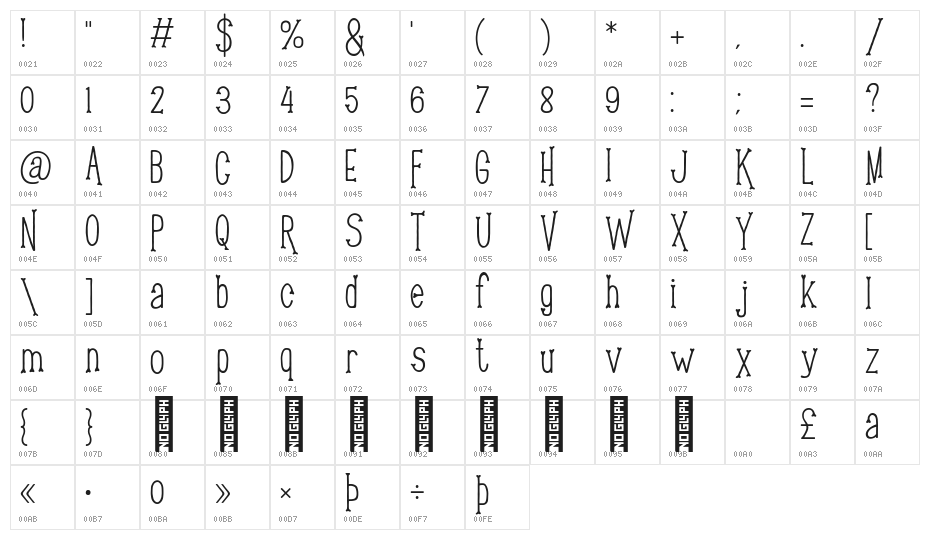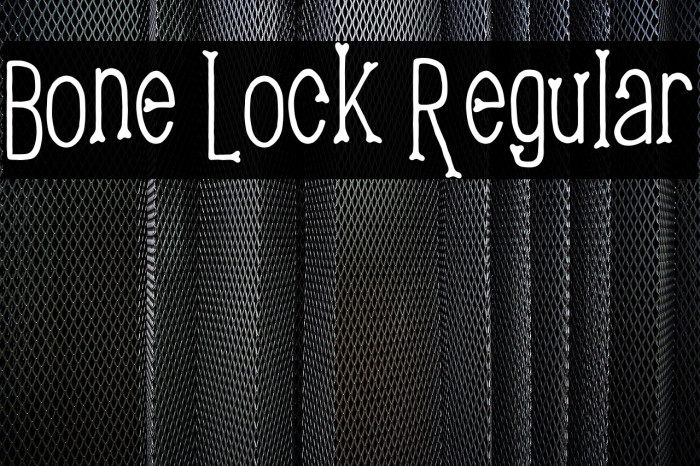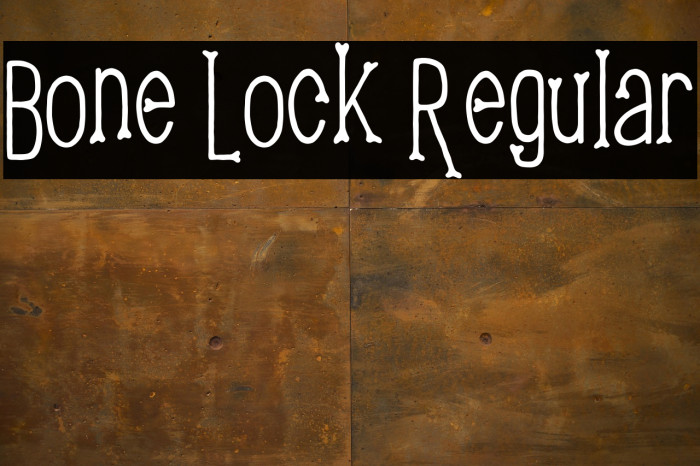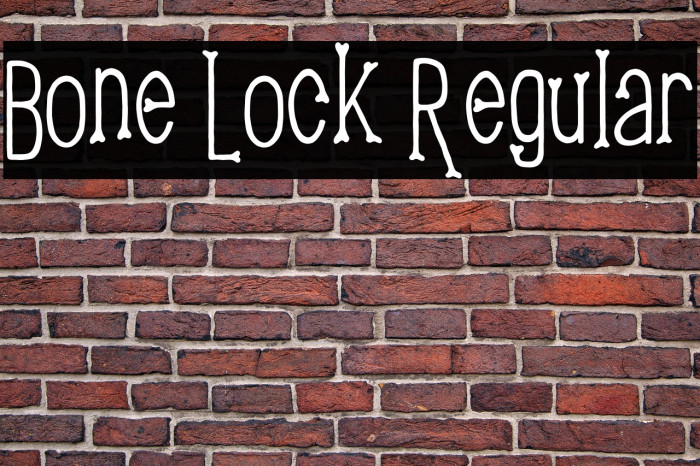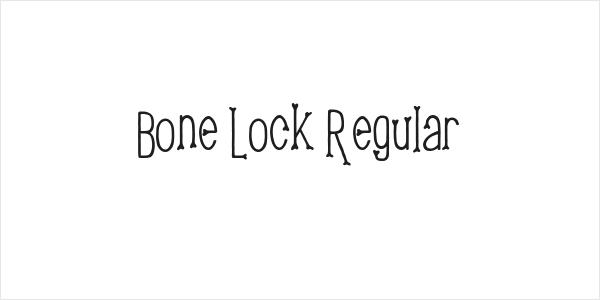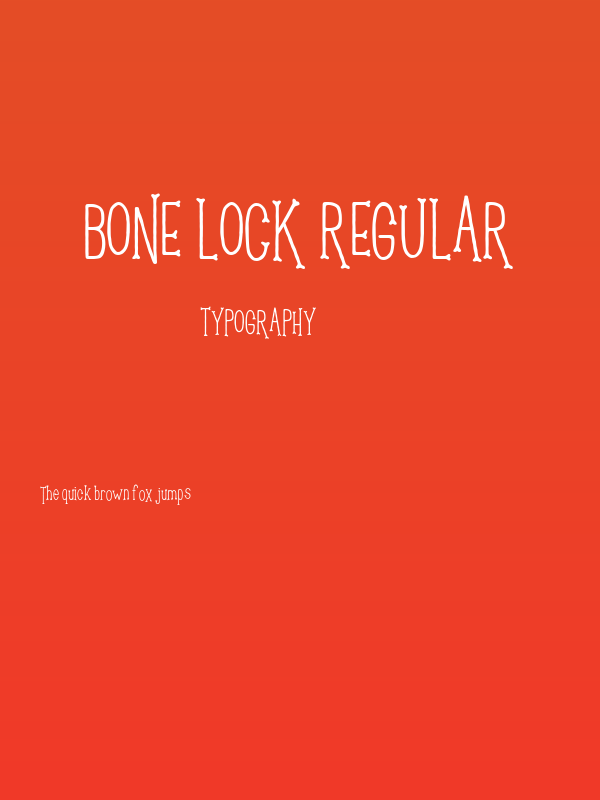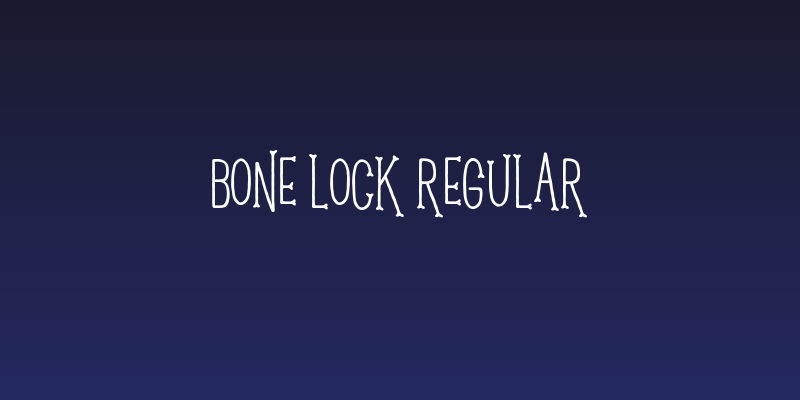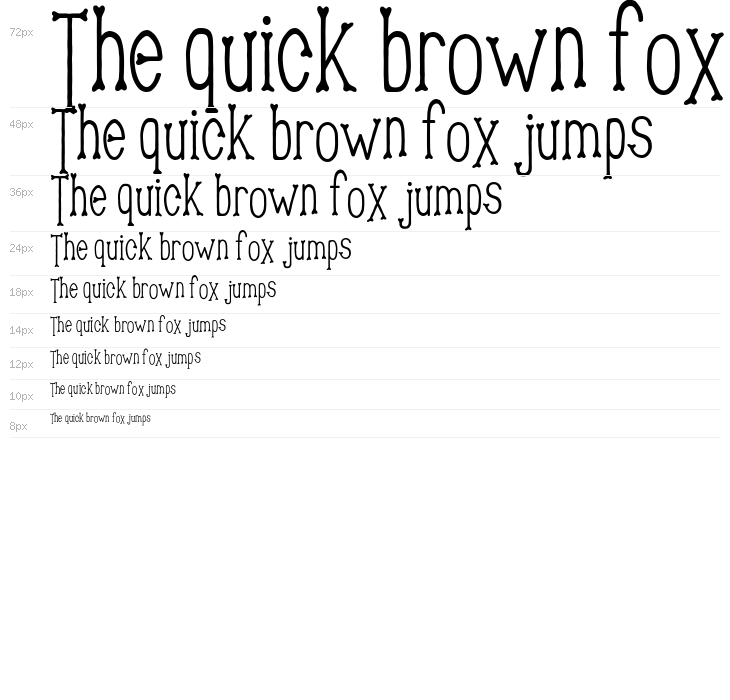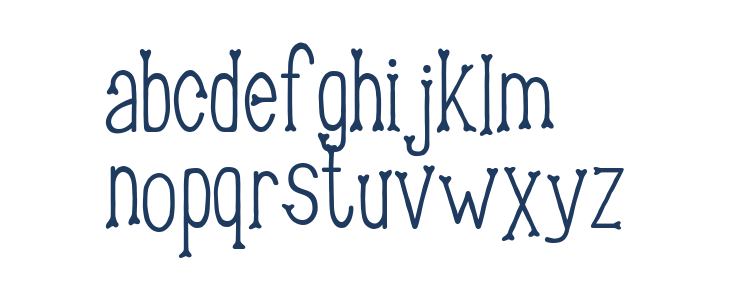
Bone Lock Regular Font
Bone Lock Regular Description
This font features a playful and quirky design, with characters that have a bone-like appearance. The strokes are uneven, giving it a hand-drawn feel, while the ends of each letter are rounded, resembling bones. The uppercase and lowercase letters maintain a consistent style, with a slight variation in height and width. Numbers and special characters follow the same thematic design, making it cohesive across all elements. This font is ideal for projects that require a fun and unique touch, such as Halloween-themed designs or children's book covers.